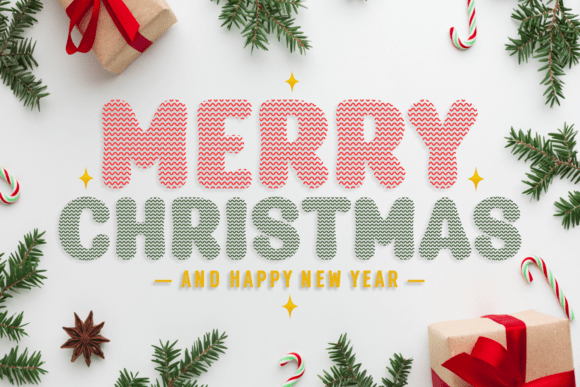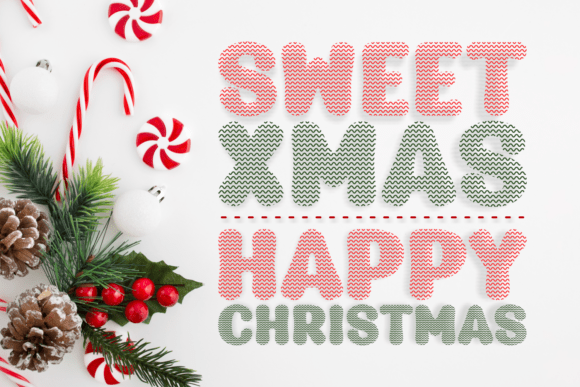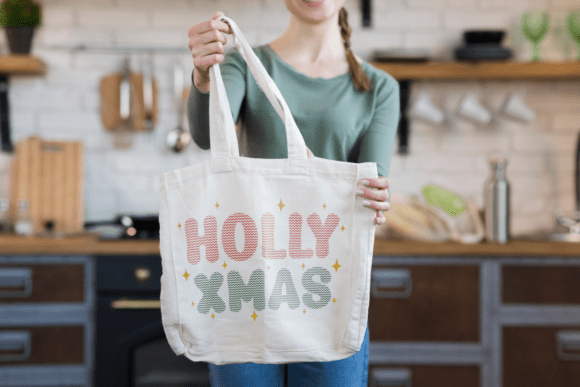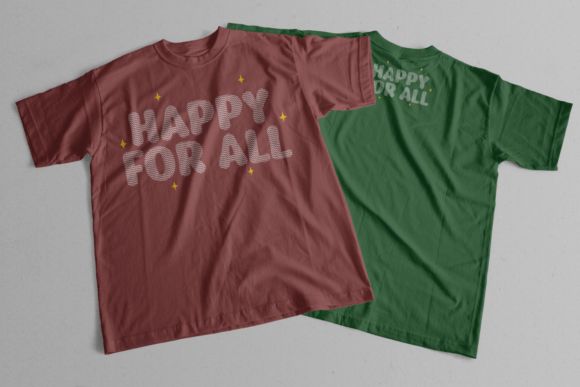
Warm Up Your Holiday Designs with the Cozy Xmas Font
The holiday season is upon us, and with it comes the need for designers and crafters to create festive and inviting designs that capture the spirit of Christmas. If you’re looking for a font that embodies the warmth and coziness of the season, look no further than the Cozy Xmas font. This unique and playful decorative typeface is specifically crafted for the winter season, offering chunky, rounded letterforms filled with a charming wave pattern that mimics a cozy winter scarf.
A Font that Wears its Holiday Spirit on its Sleeve
The Cozy Xmas font is the ultimate choice for Christmas cards, holiday merchandise, and seasonal marketing campaigns that need a touch of comfort and joy. Its distinctive knit sweater texture gives it a tactile, handmade feel that’s perfect for designers and crafters who want to add a personal touch to their work. Whether you’re creating a festive holiday card, a cozy winter-themed poster, or a set of holiday-themed stickers, the Cozy Xmas font is sure to stand out on the shelf or on screen.
Unique Features of the Cozy Xmas Font
So what sets the Cozy Xmas font apart from other holiday fonts on the market? Here are just a few of its unique features:
- Knit sweater texture: The Cozy Xmas font features a distinctive knit sweater texture that gives it a tactile, handmade feel.
- Chunky, rounded letterforms: The font’s chunky, rounded letterforms are perfect for creating bold and eye-catching designs.
- Charming wave pattern: The font’s wave pattern mimics a cozy winter scarf, adding a touch of whimsy and playfulness to your designs.
- Perfect for holiday designs: The Cozy Xmas font is specifically crafted for the winter season, making it the perfect choice for Christmas cards, holiday merchandise, and seasonal marketing campaigns.
How to Use the Cozy Xmas Font in Your Designs
The Cozy Xmas font is incredibly versatile, and can be used in a wide range of designs, from holiday cards and posters to stickers and social media graphics. Here are a few ideas to get you started:
- Holiday cards: Use the Cozy Xmas font to create festive and inviting holiday cards that are sure to delight your friends and family.
- Holiday merchandise: The Cozy Xmas font is perfect for creating holiday-themed merchandise, such as t-shirts, mugs, and tote bags.
- Seasonal marketing campaigns: Use the Cozy Xmas font to add a touch of warmth and coziness to your seasonal marketing campaigns, from social media graphics to email newsletters.
- Winter-themed posters: Create eye-catching winter-themed posters that showcase the Cozy Xmas font’s unique features.
Tips for Getting the Most out of the Cozy Xmas Font
| Font Name | Cozy Xmas Font |
| Author | Feri (7NTypes) |
The Cozy Xmas font is a unique and playful decorative typeface that’s perfect for designers and crafters who want to add a touch of warmth and coziness to their holiday designs. With its distinctive knit sweater texture, chunky rounded letterforms, and charming wave pattern, the Cozy Xmas font is sure to stand out on the shelf or on screen. Whether you’re creating holiday cards, merchandise, or marketing campaigns, the Cozy Xmas font is the ultimate choice for anyone who wants to capture the spirit of Christmas.